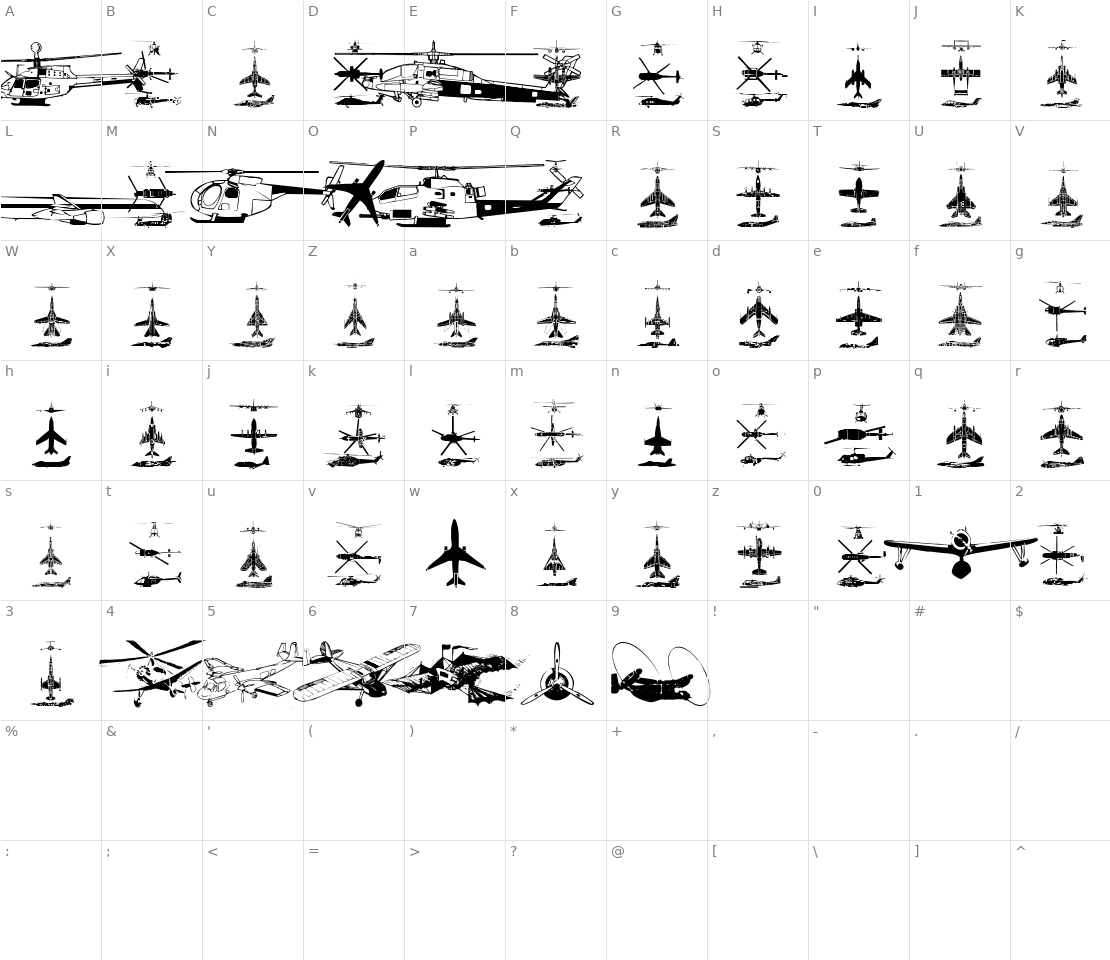
Aircraft
by Perry Mason
Aircraft is a symbol font by Perry Mason featuring silhouettes of military and civilian aircraft, from fighter jets and helicopters to transport planes. Each glyph is a clean, recognizable vehicle shape rather than a letter, making it useful for maps, infographics, aviation-themed designs, or anywhere you need quick visual shorthand for different aircraft types.